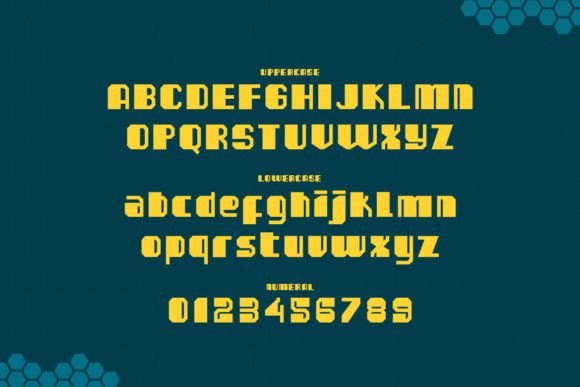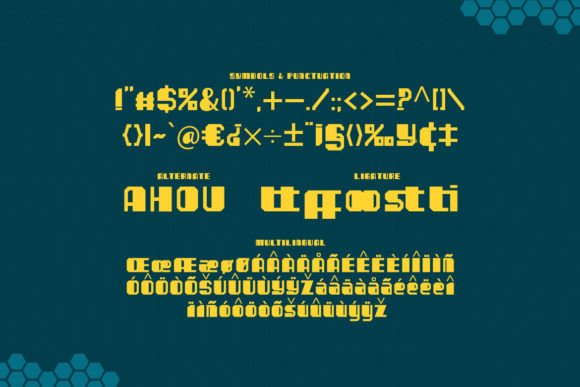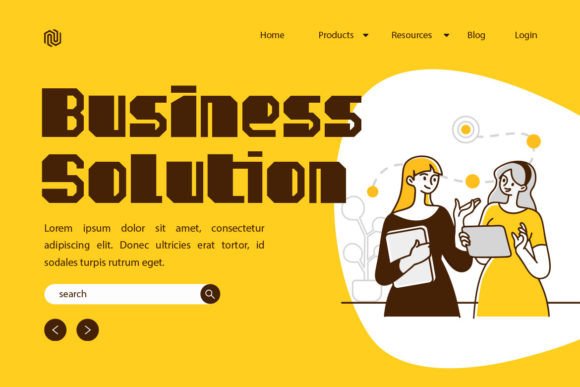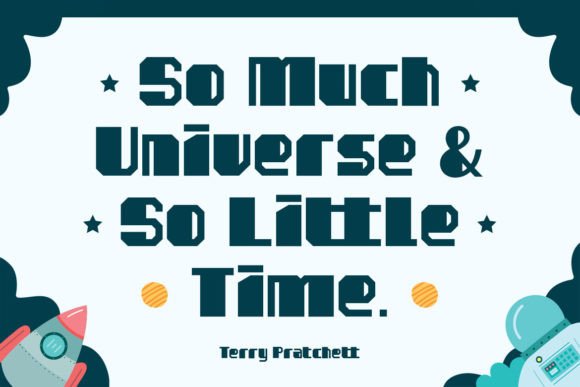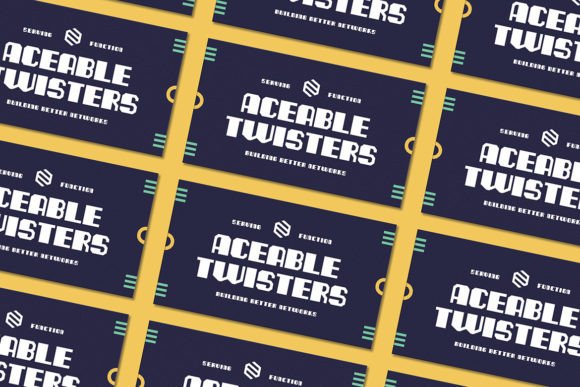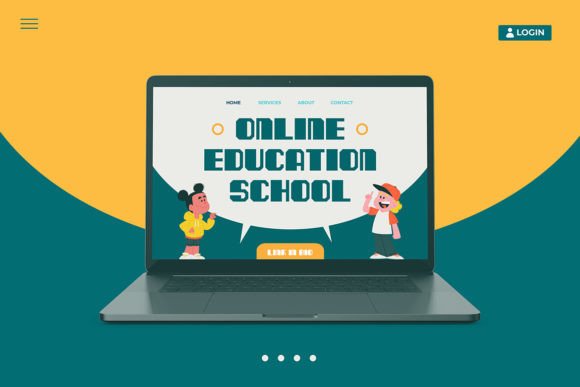
Introduction to Netbee Font
Have you ever stared at a blank canvas, trying to spark inspiration for your next creative project? The blank page stares back, taunting you with its emptiness. But then, a spark of creativity strikes, and you envision the perfect design – bold, yet elegant, with a hint of whimsy. That’s when you know you need the right tool to bring your vision to life. Enter the Netbee Font, a high-quality display typeface that’s about to become your new design BFF.
This unique font is not just a pretty face; it’s a versatile design resource that can elevate any creative project. With its sharp lines and bee-inspired design, the Netbee Font is perfect for achieving an exquisite, yet subtle look. Whether you’re working on a logo, a brochure, or a website, this font is sure to impress. And the best part? It’s available for free download, so you can get creative without breaking the bank.
- Features a modern and clean design, making it suitable for a wide range of creative projects.
Honest Review: Netbee Font
I recently stumbled upon the Netbee Font, and I must say, it’s a great addition to my design resource library. The high quality of this font makes it perfect for creative projects that require a unique touch.
- ✨ The font’s clean and modern design makes it easy to read and understand.
- ⚠️ The font may not be suitable for very small text sizes, as the characters can become difficult to read.
Overall, I’m impressed with the Netbee Font and would definitely recommend it to designers looking for a high-quality, free download font to add to their design resource library.
Tips for Getting the Most Out of Netbee Font
For a transparent background, use the Netbee Font in a layer above a transparent background image. This will create a seamless and professional design. Experiment with different font sizes and styles to find the perfect balance for your project.
The Netbee Font is suitable for a wide range of creative projects, including logos, business cards, brochures, and presentations. Its high-quality design makes it an excellent choice for any project where a clean and modern look is desired.
Yes, the Netbee Font has been designed to work perfectly on a transparent background. This allows you to create visually appealing designs with a clear and crisp typography, making it an excellent choice for creative projects that require a high level of design sophistication.